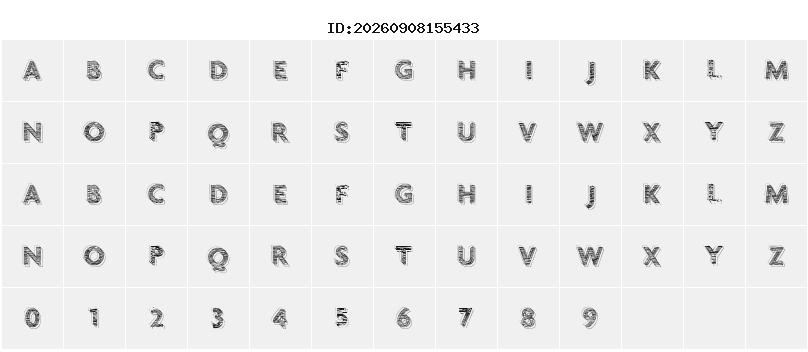
• Font Name: vtks chalk 79
• Full Font Name: vtks chalk 79
• Version: Version 1.00 January 11, 2012, initial release
• Designer: douglas vitkauskas
About vtks chalk 79.ttf
vtks chalk 79.ttf is a modern, elegant sans-serif font designed for ultimate readability and visual harmony. Perfect for branding, headlines, web design, and print materials.